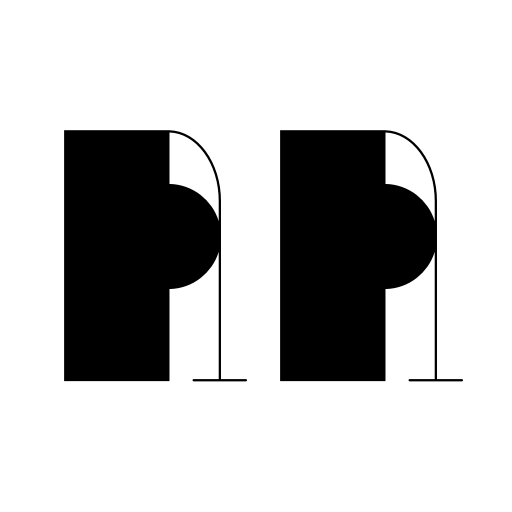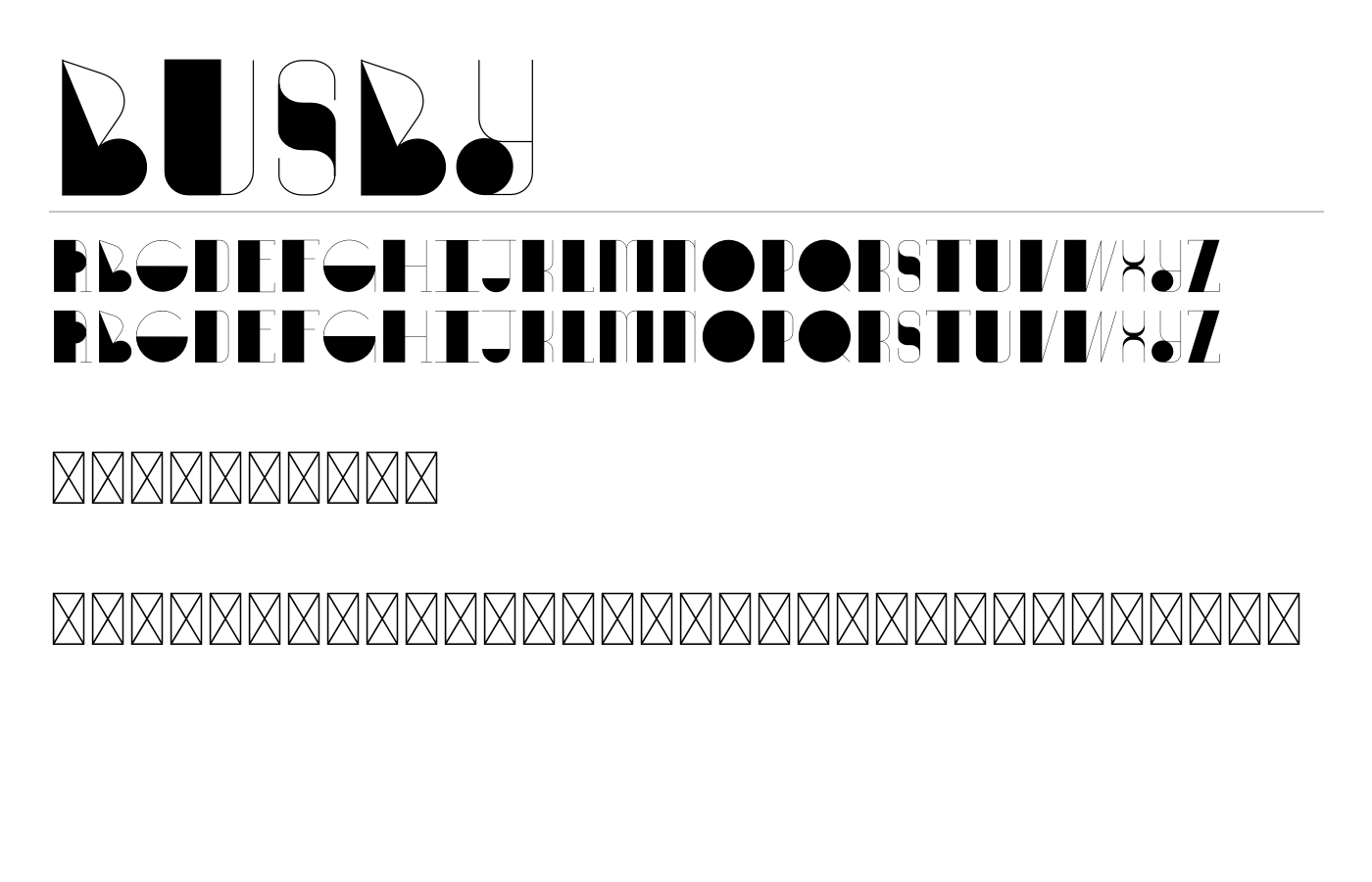
Busby Font is a bold, modern display typeface with a striking geometric design and high contrast between thick and thin strokes. Its sharp angles and playful shapes bring a unique, artistic flair that works well for eye-catching headlines, branding, and creative projects seeking a contemporary and stylish look. This font suits fashion, editorial, and poster designs where a distinctive, statement-making style is desired.
Busby Font
About Busby Font